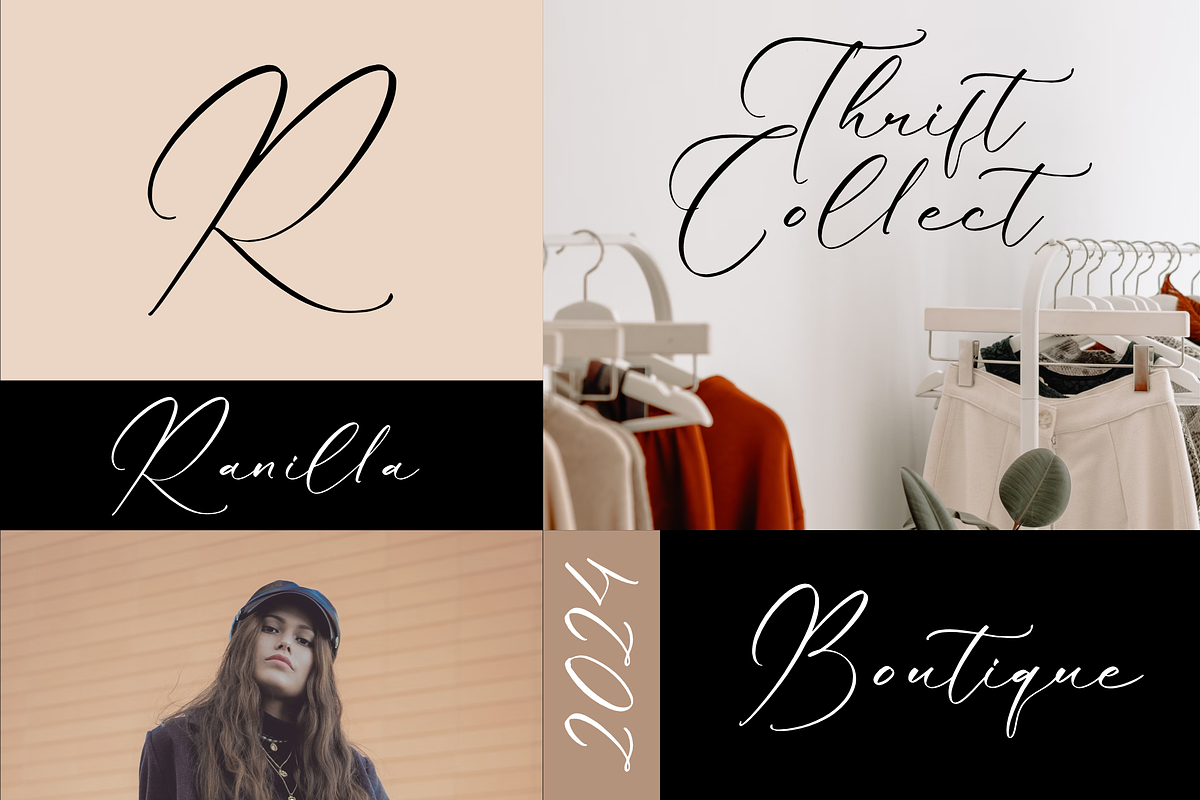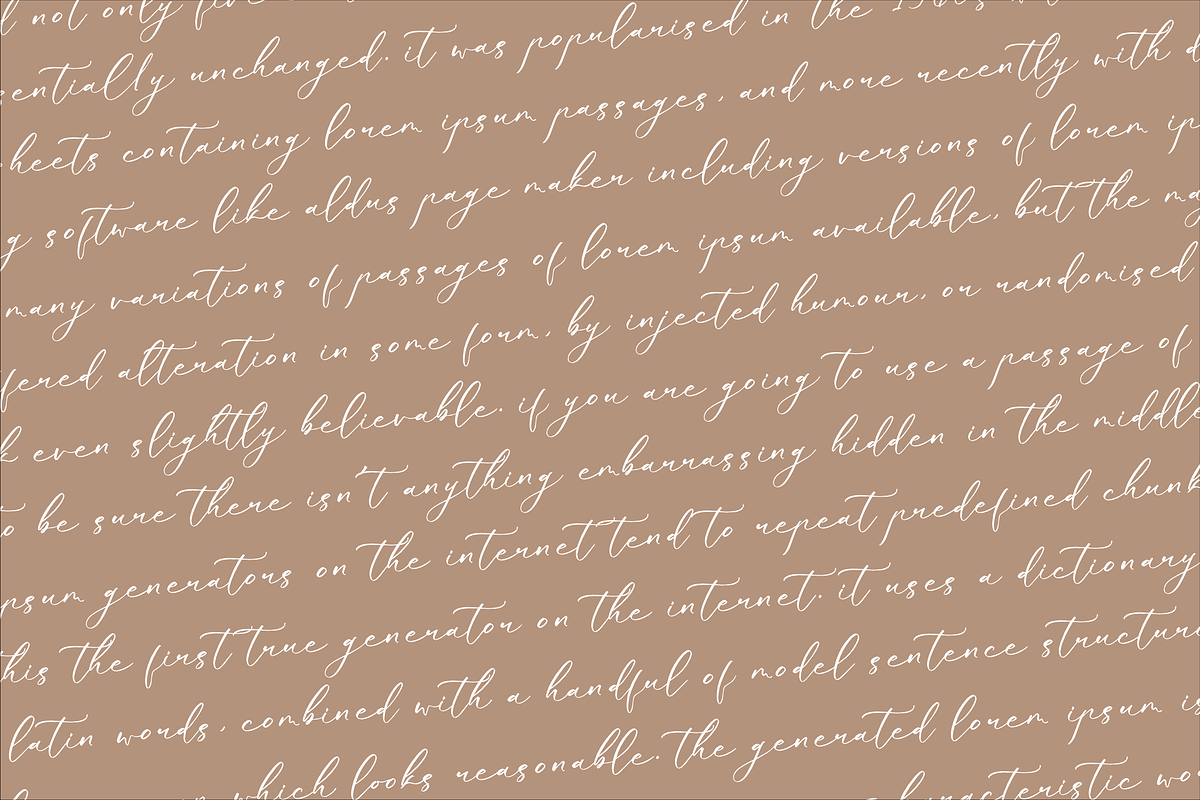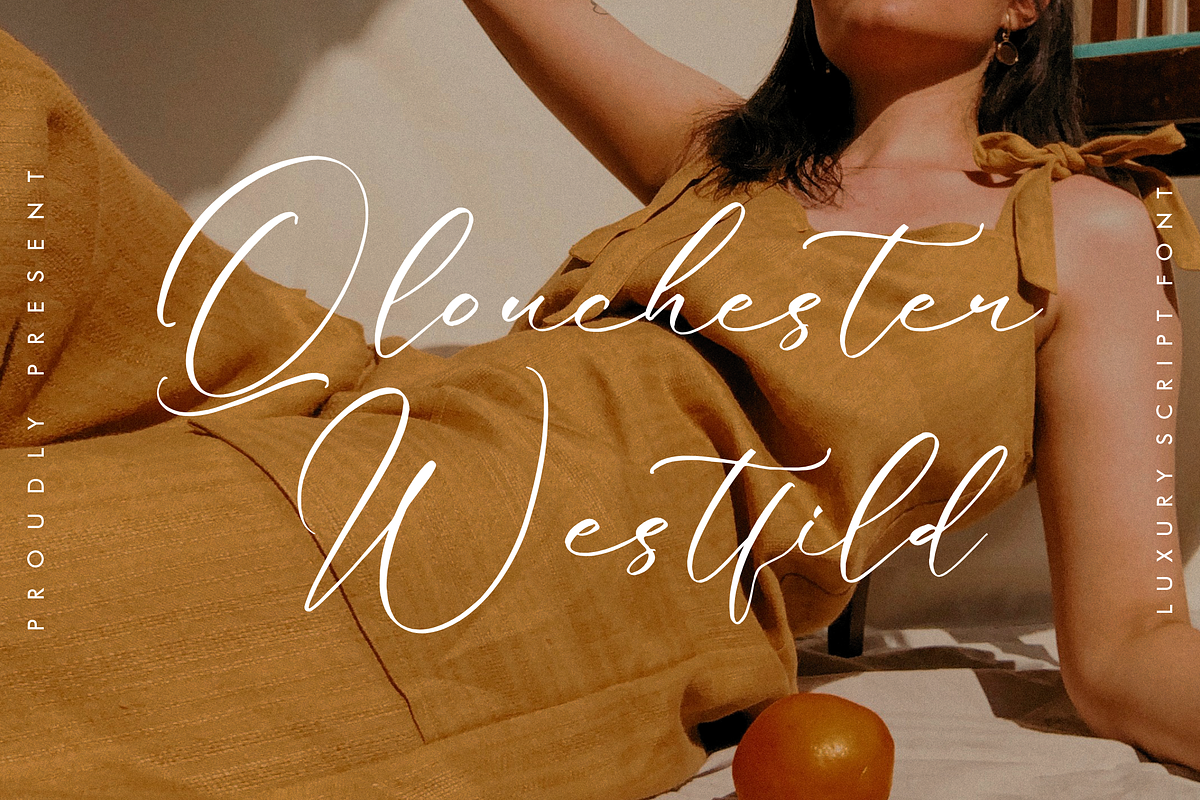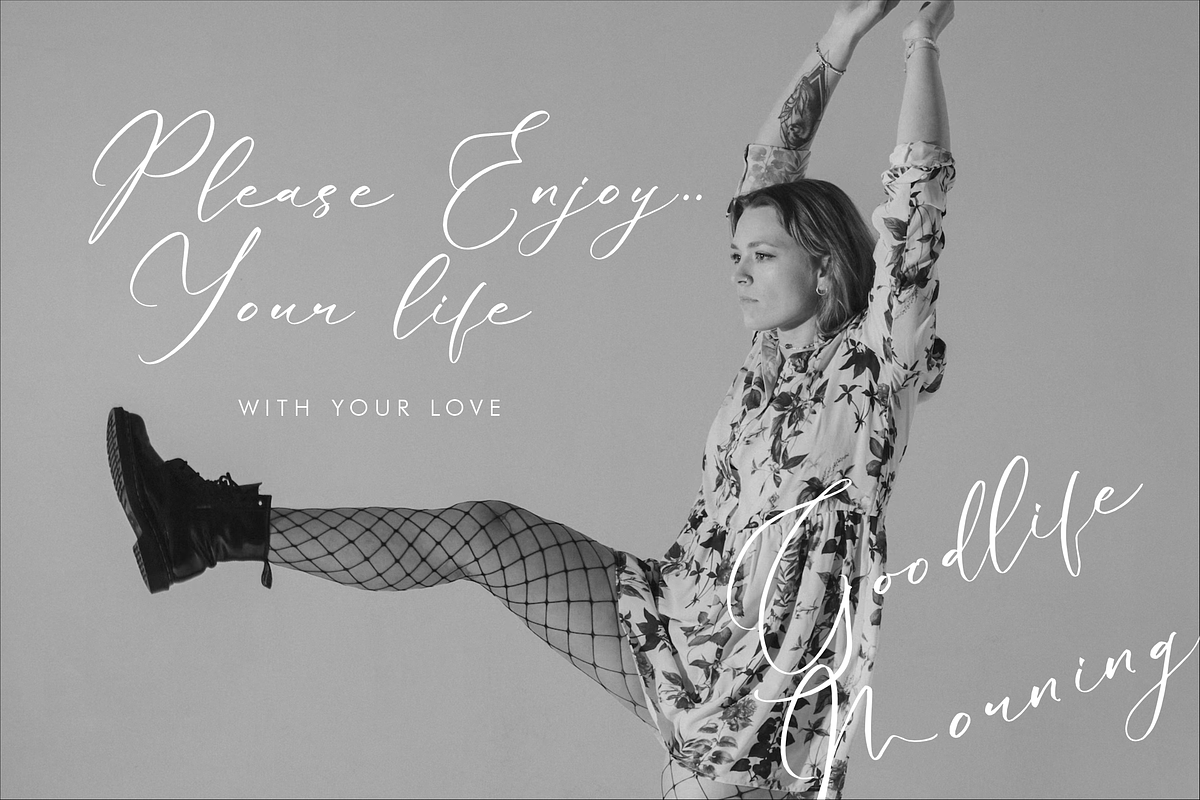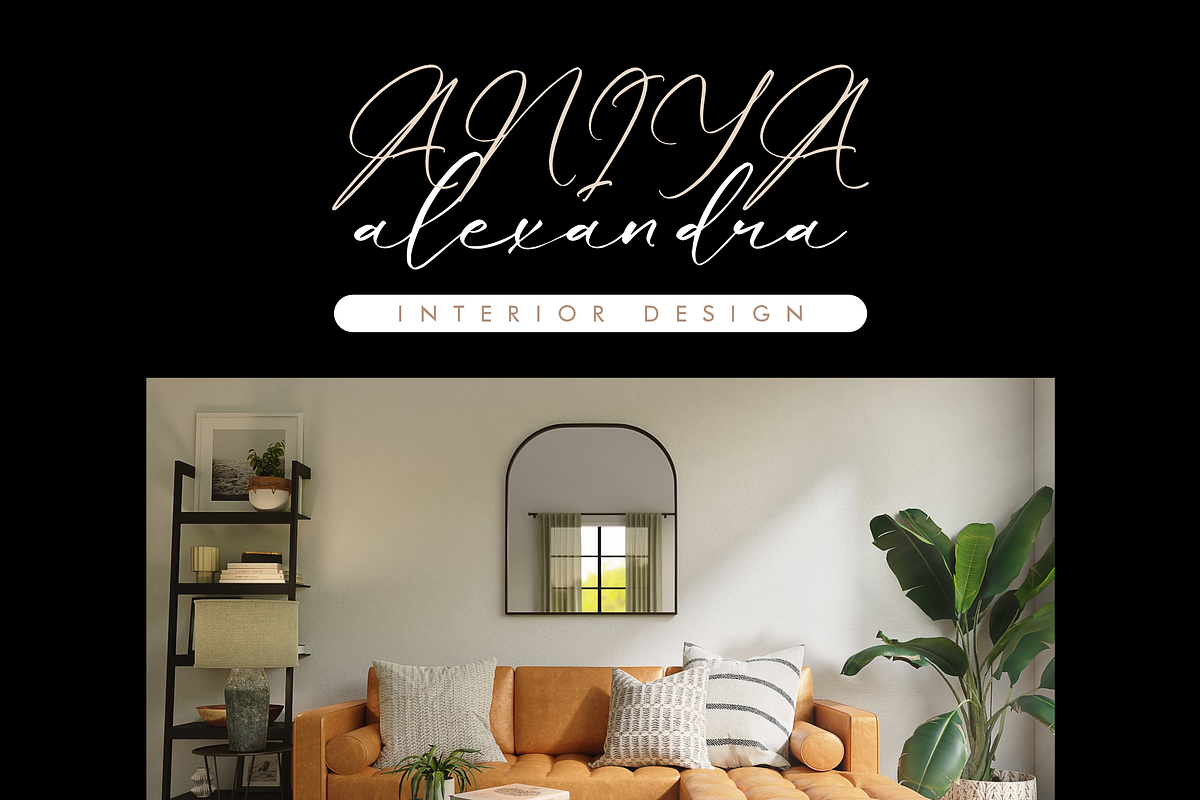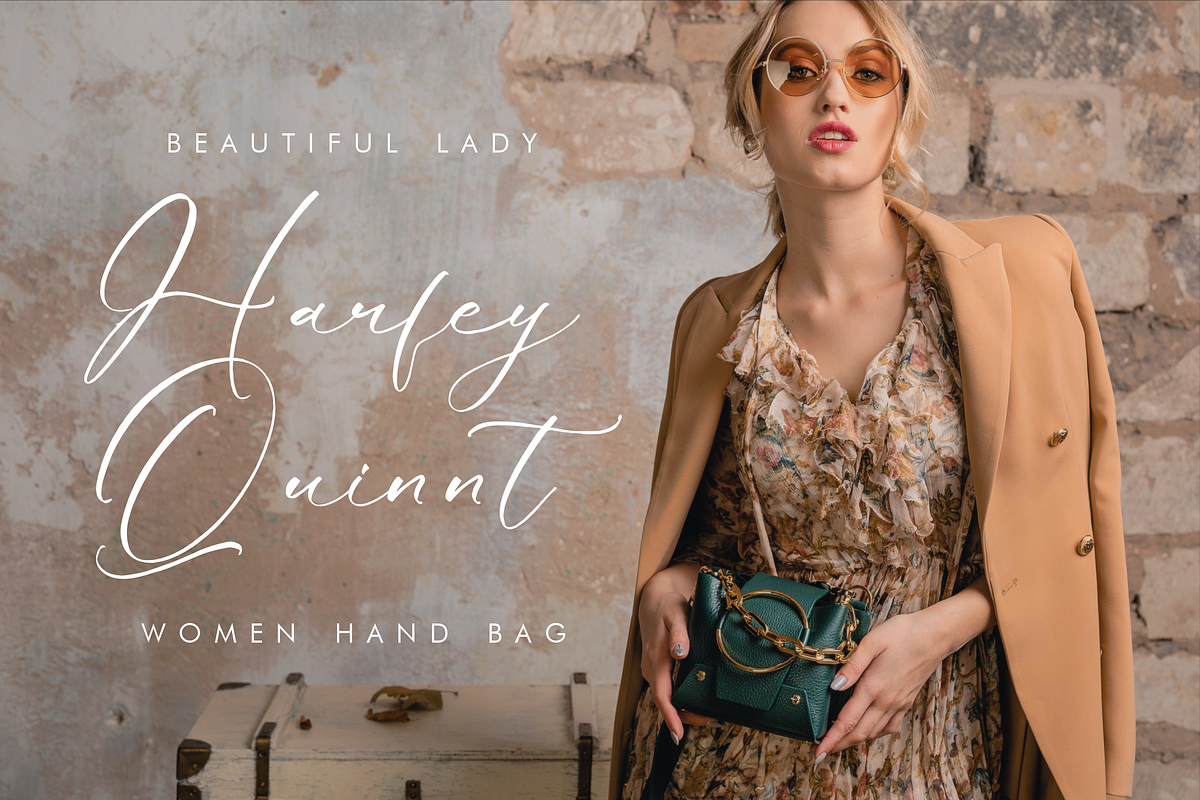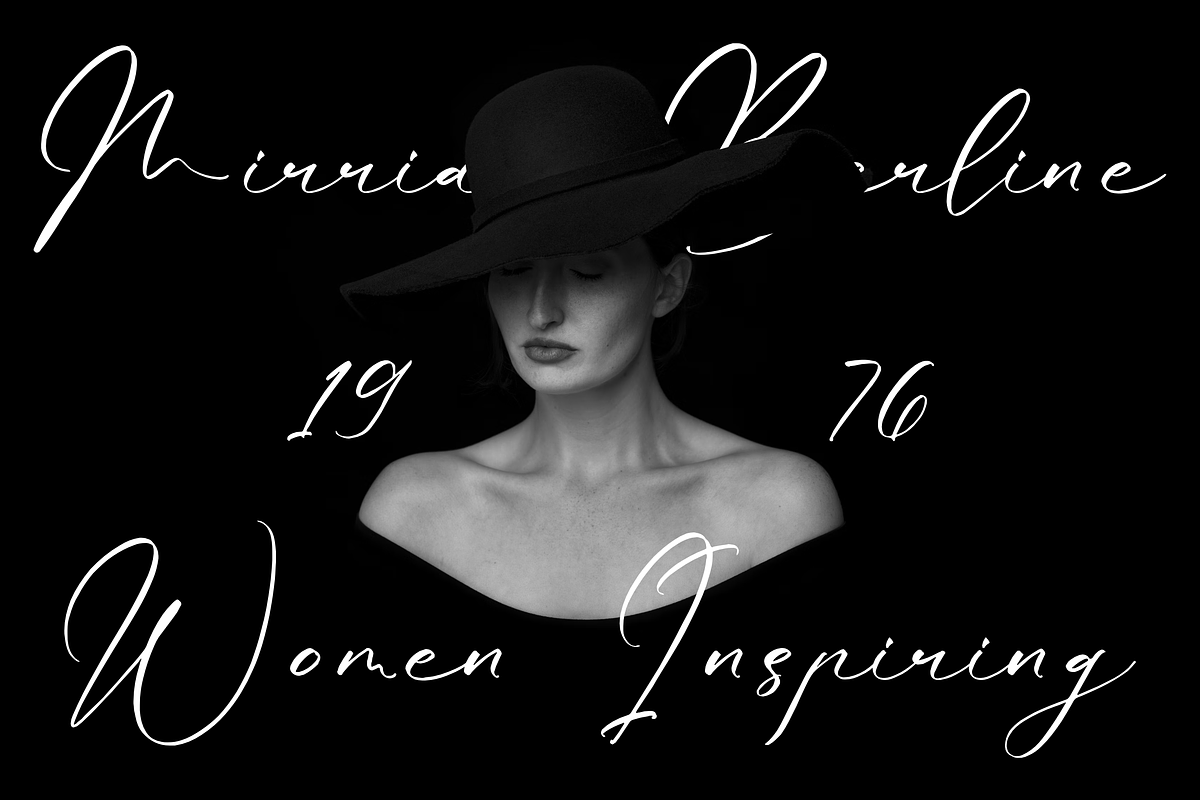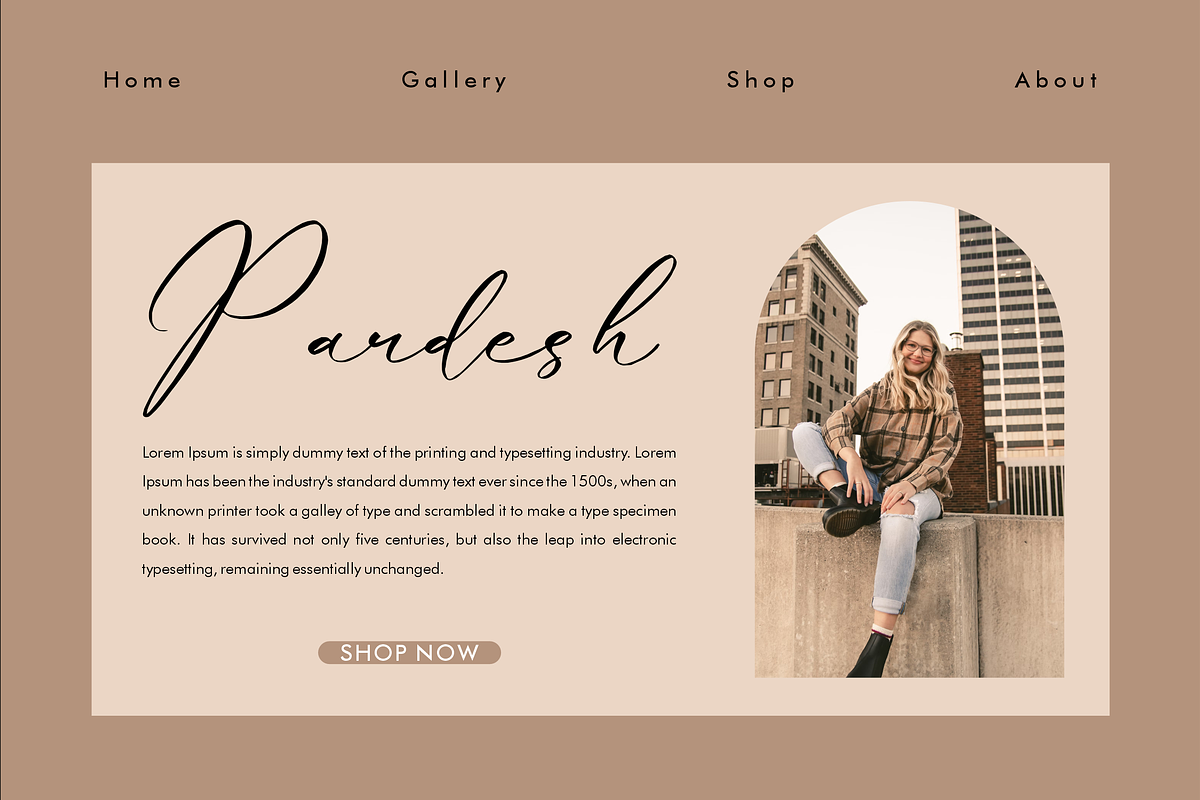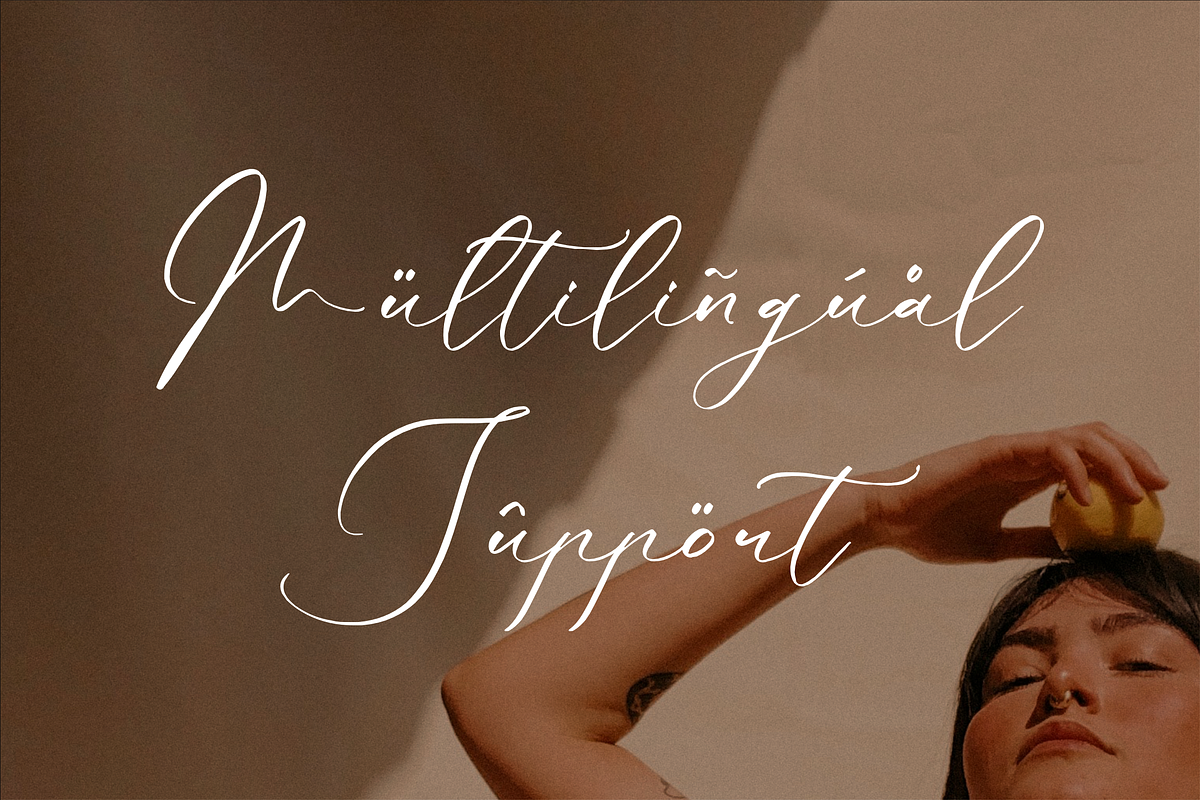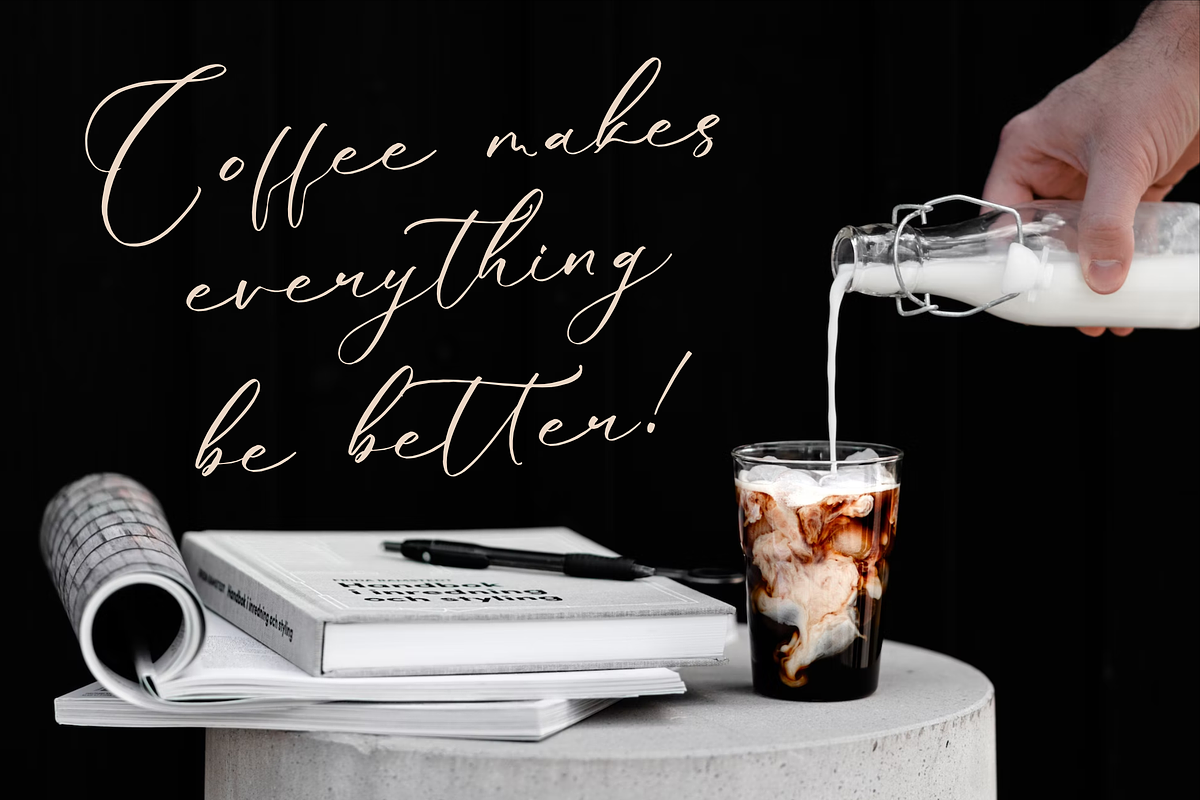
Qlouchester Westfild Luxury Script
Proudly present Qlouchester Westfild - Luxury Script Font , created by Storytype, A luxury script that has own unique style & modern look. This typeface is perfect for an elegant & luxury logo, book or movie title design, fashion brand, magazine, clothes, lettering, quotes, and so much more.